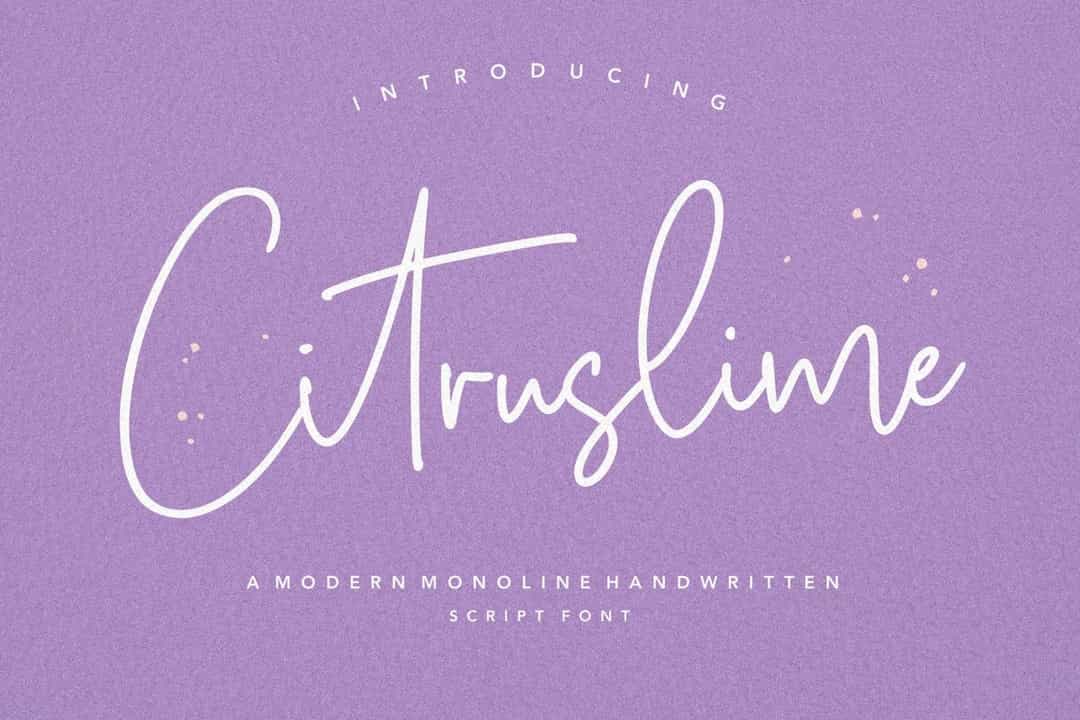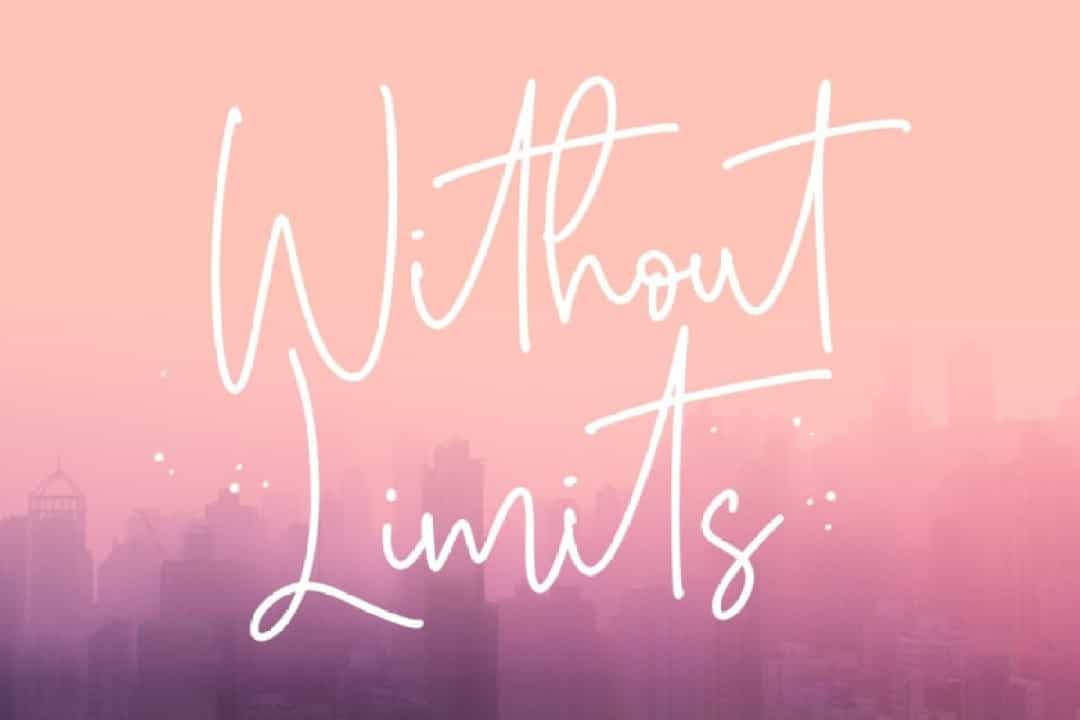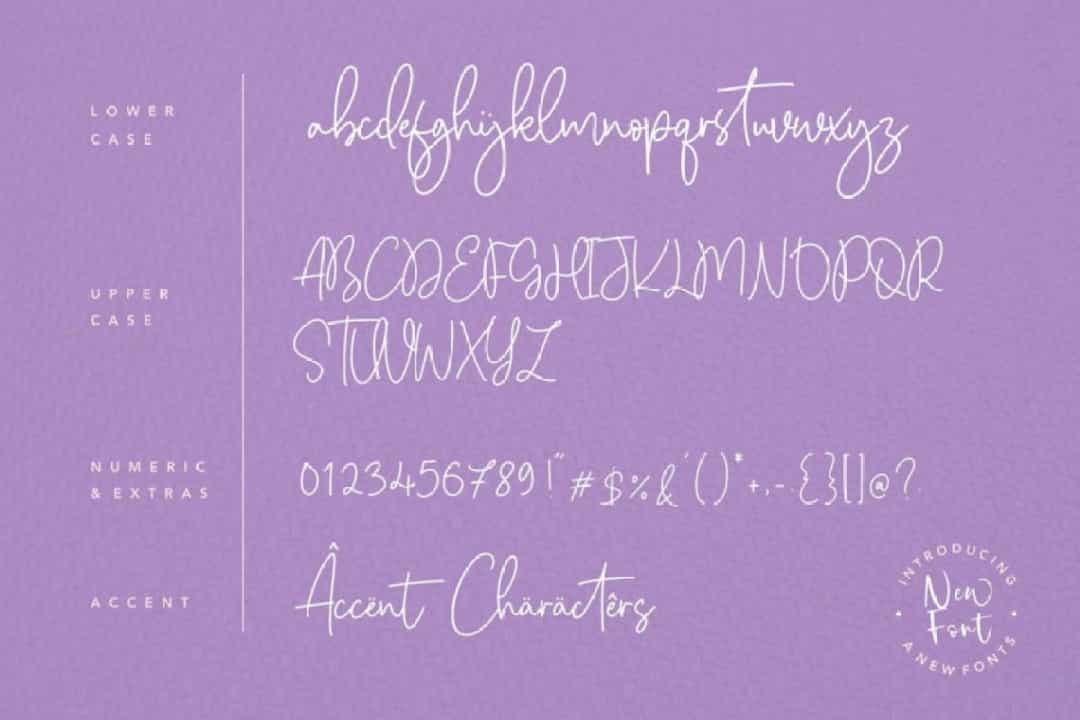
Discover Citruslime Font, part of the Handwritten Script Monoline Personal collection—a versatile and unique font perfect for adding a personal touch to your projects. Download it for free and enjoy crafting designs with style, from invitations to social media posts. This font is available exclusively for personal use, giving you the freedom to create without limits. Unlock your creativity with Citruslime Font today!
Citruslime is a beautiful handwritten, monoline font with elegance and style in its creation for the purpose of personal use or commercial projects. As great for Instagram captions and even for designing calligraphy, Citruslime will help to bring any concept to life!